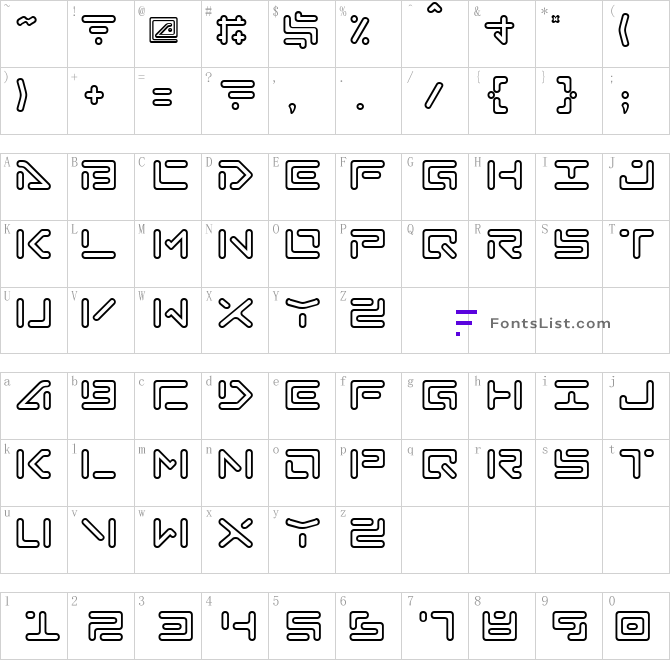
- Font Name:Abduction II
Abduction-II.ttf is a very beautiful artistic font, Abduction-II.ttf is widely used in the design and printing of various books and pictures,Abduction-II.ttf has a strong visual impact,Abduction-II.ttf is a commonly used font in newspapers, magazines and books, and is used in posters, e-commerce Poster design, store design, logo design, font design and other fields.Abduction-II.